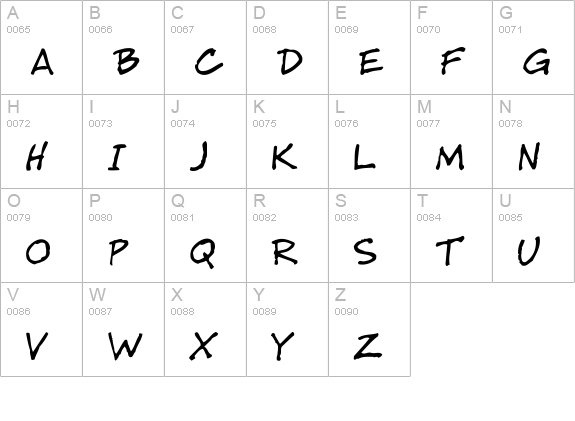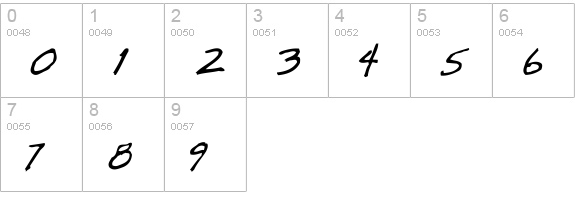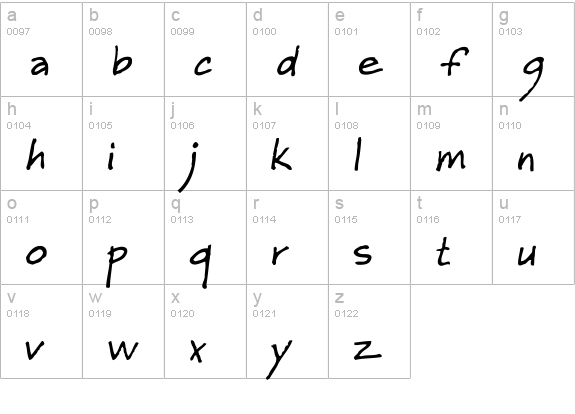
HenryHand Font Details
HenryHand font is a charming and versatile typeface that exudes warmth and personality. With its hand-drawn style and playful curves, this font is perfect for adding a personal touch to your design projects. Whether you're creating invitations, greeting cards, or social media graphics, HenryHand will bring a touch of whimsy to your work. Best of all, HenryHand is available for free download at FontsMarket.com. This means you can easily access this delightful font and start using it in your designs right away. Don't miss out on the opportunity to add HenryHand to your font collection and elevate your creative projects with its unique flair.